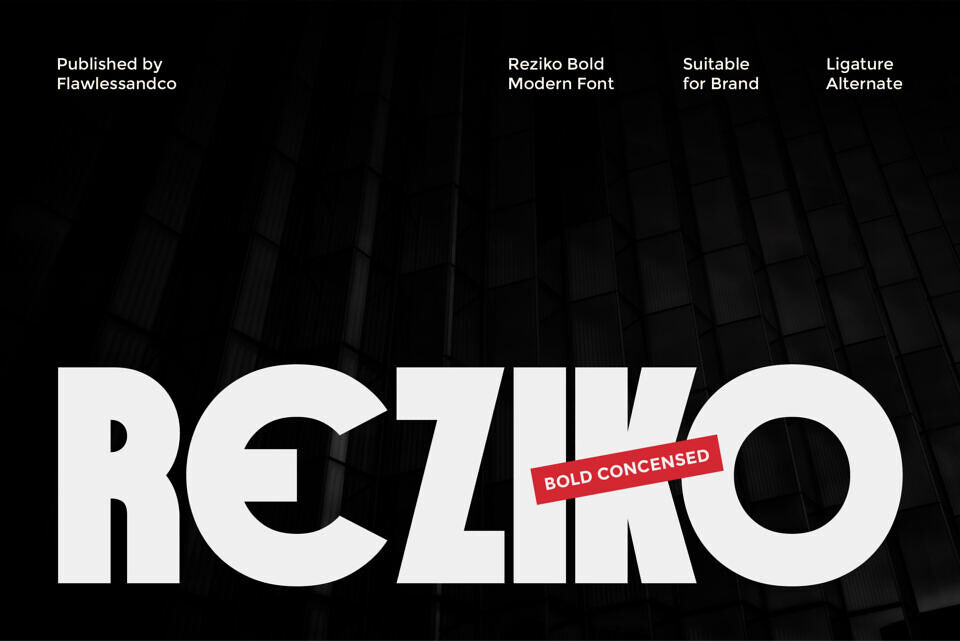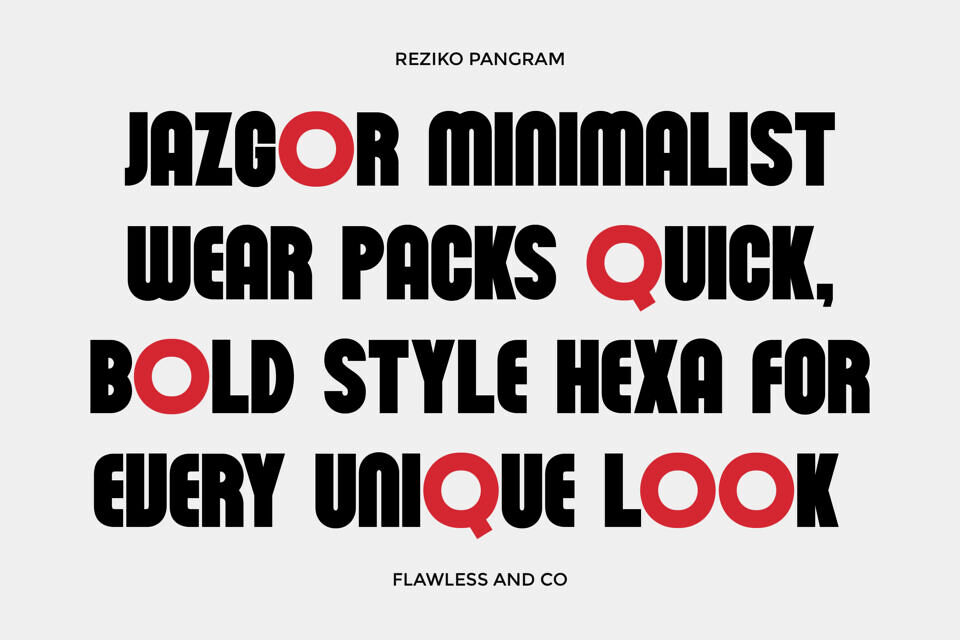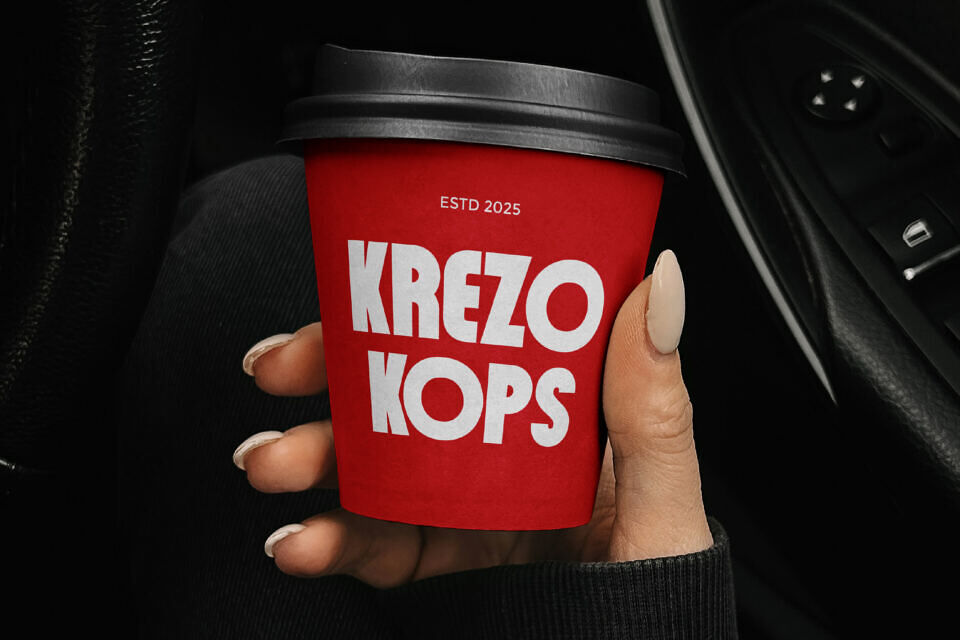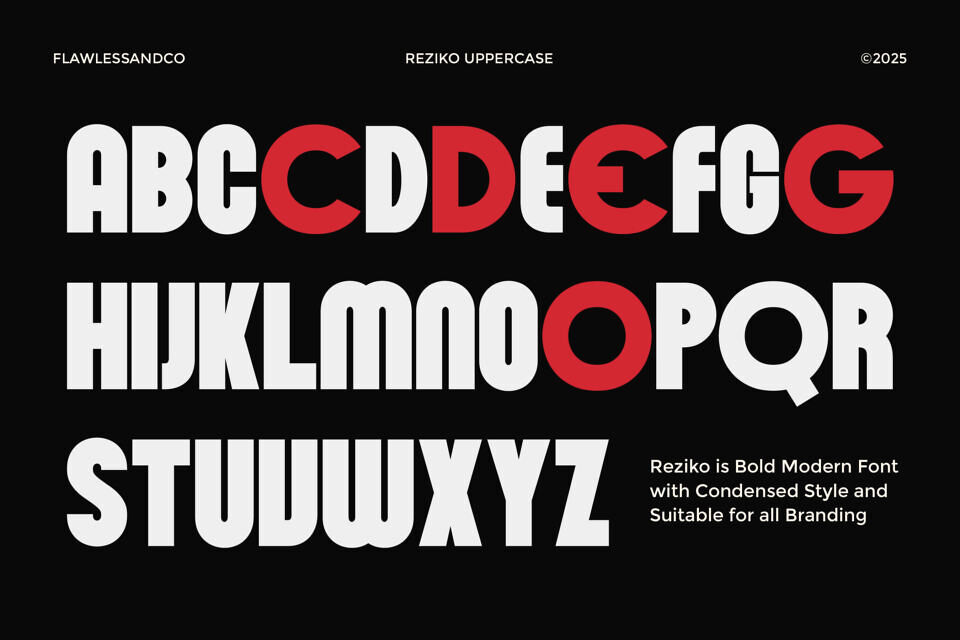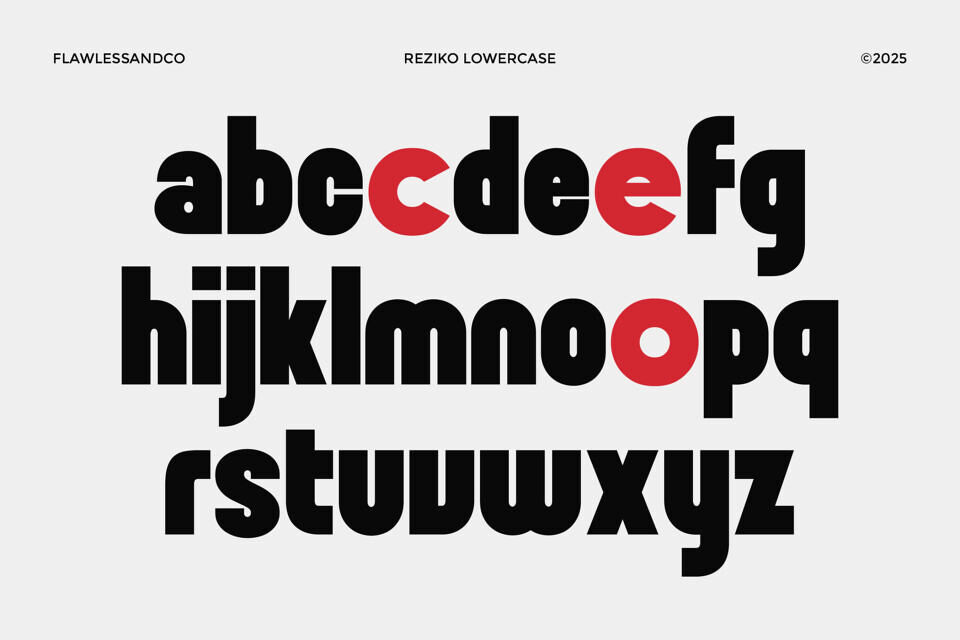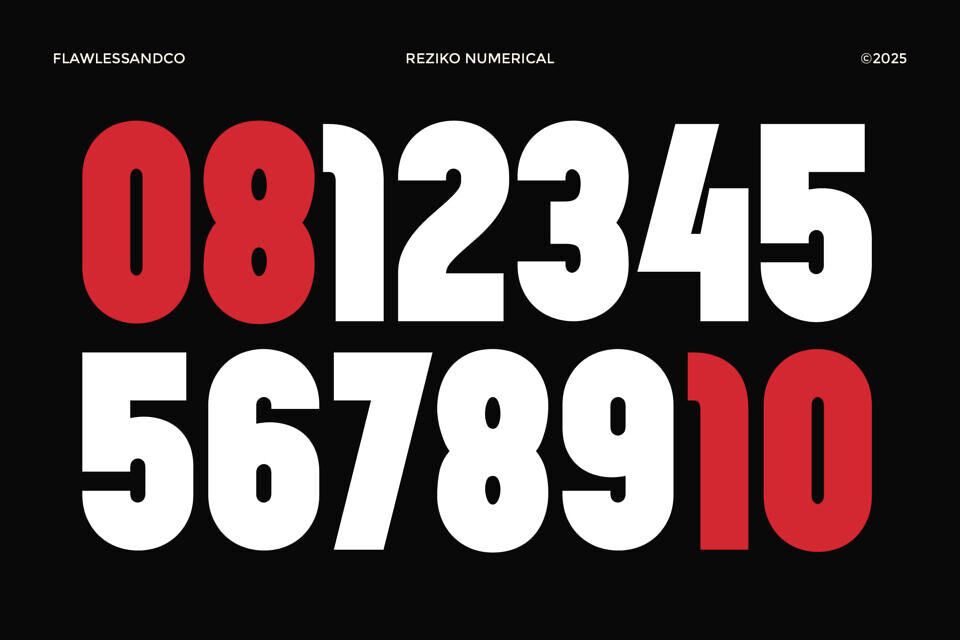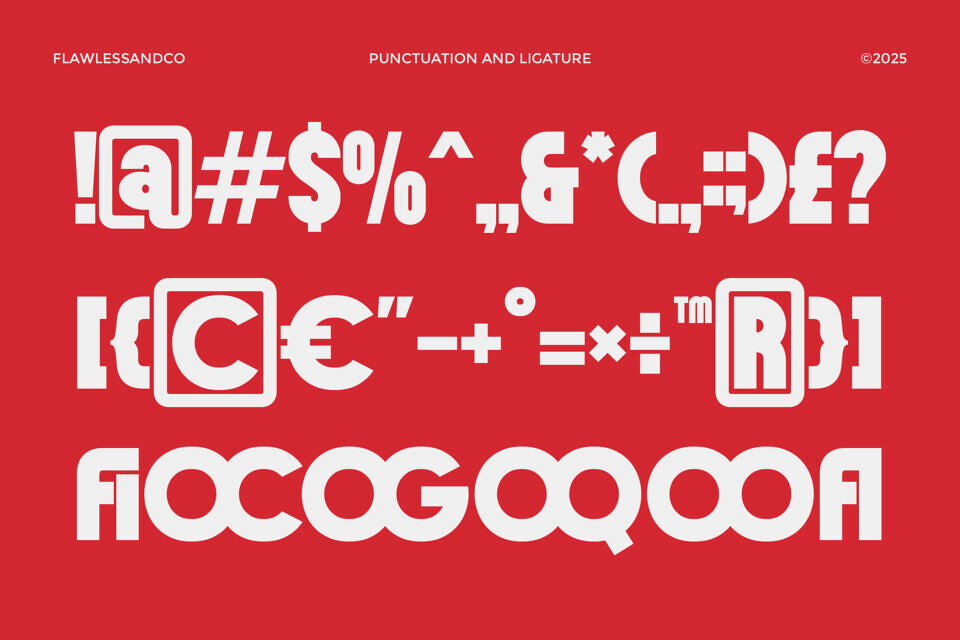
Reziko Font
Reziko is a bold modern condensed font designed to deliver a strong, confident, and contemporary visual impact. With its clean structure, tight spacing, and powerful letterforms, Reziko is perfect for brands that want to stand out with clarity and authority. This font combines modern aesthetics with a condensed style, making it ideal for impactful headlines and branding-focused designs.